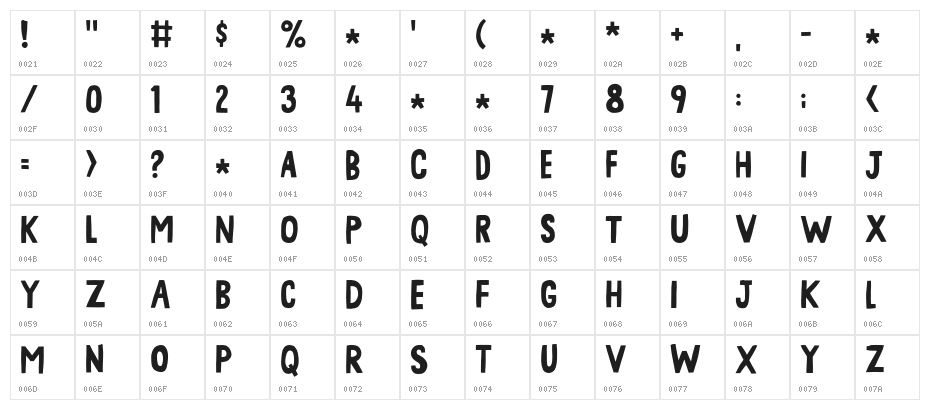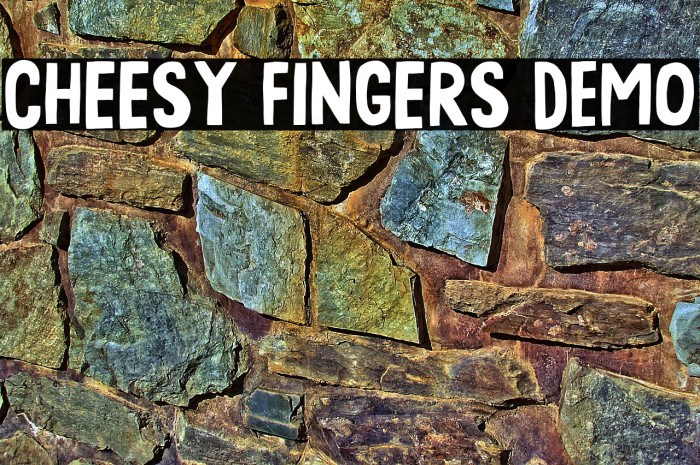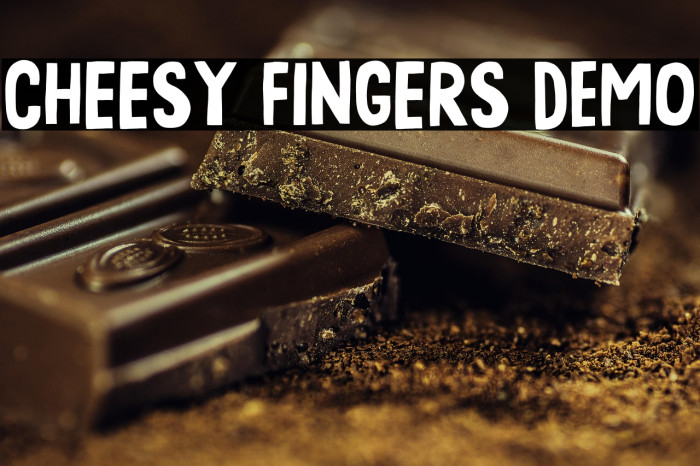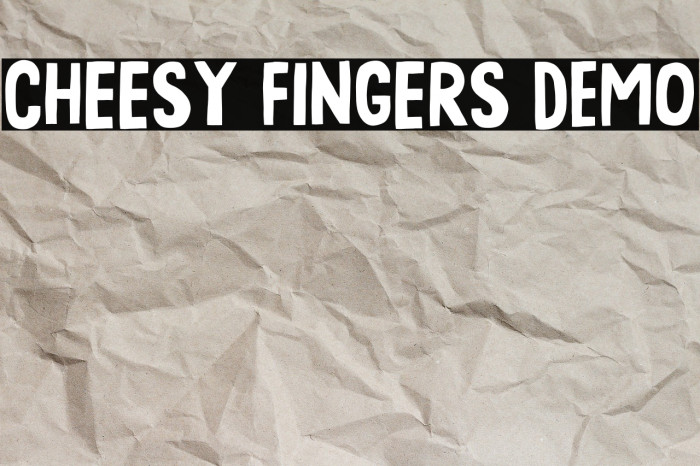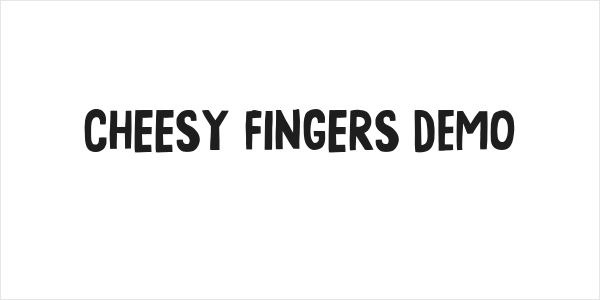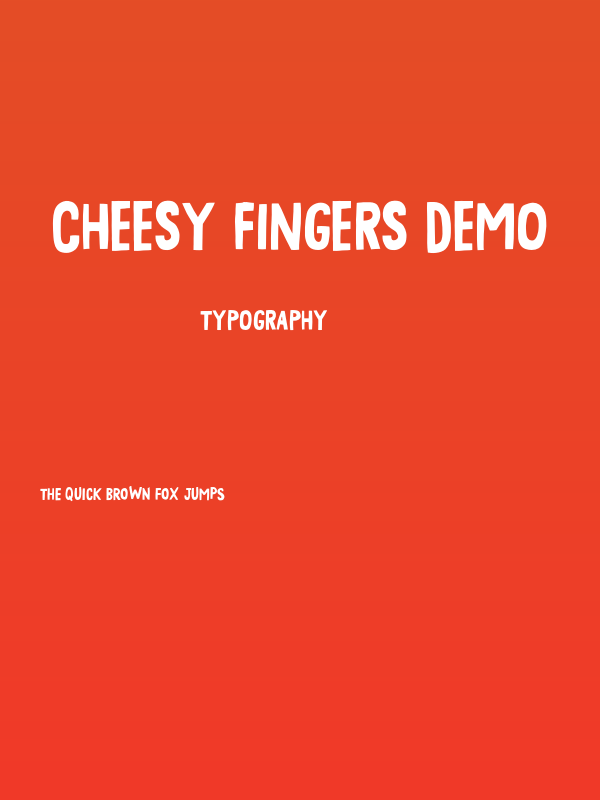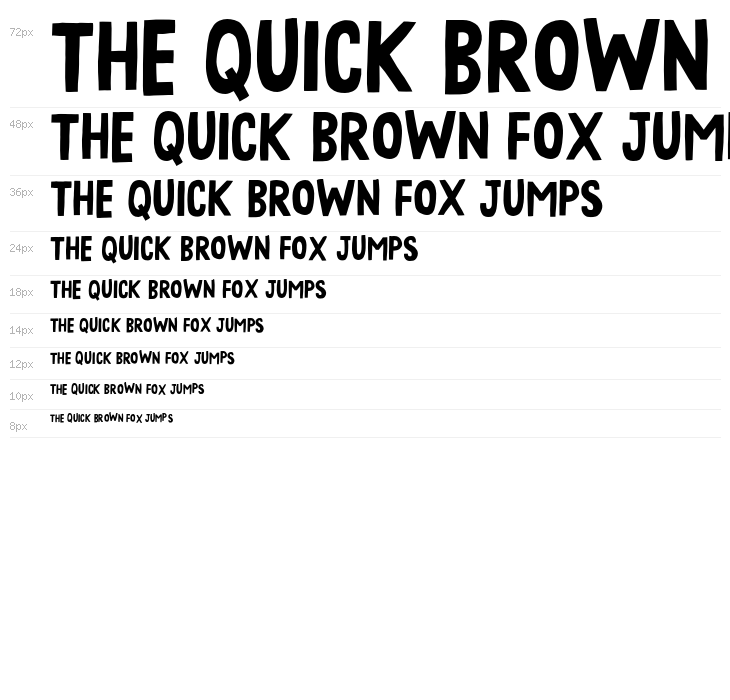
Cheesy Fingers DEMO Font
Cheesy Fingers DEMO Description
This font features a playful and bold style with a hand-drawn appearance. The characters are slightly irregular, giving it a whimsical and informal feel. The strokes are thick and consistent, providing a strong presence on the page. The uppercase and lowercase letters maintain a consistent height, while the numbers and special characters follow the same playful design. This font is ideal for projects that require a fun and engaging look, such as children's books, posters, or casual branding.
| Proposed Projects | Ideal for children's books, playful posters, casual branding, and creative invitations. |